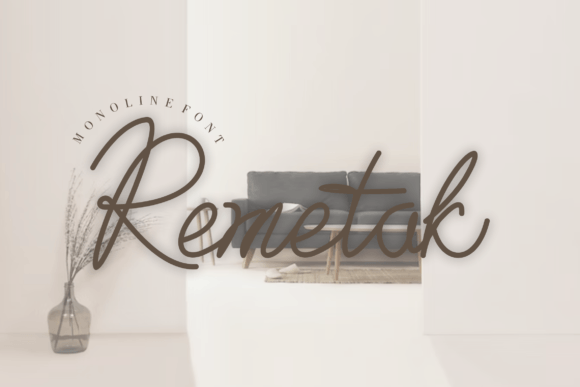
Immerse yourself in the world of Remetak, a captivating script font that exudes an aura of sophistication and grace. Each character flows seamlessly, guided by an elegant hand that dances across the page, leaving a trail of beauty in its wake.
Indulge in the versatility of Remetak, a font that adapts effortlessly to any project, from intimate to grand. Its delicate strokes lend a touch of refinement to personal stationery, while its bold presence commands attention on posters and website headers.
Unleash your creativity with Remetak, a font that empowers you to express yourself with confidence. Its timeless design transcends trends, ensuring that your creations will remain captivating for years to come.
Embrace the allure of Remetak, a font that speaks to your soul. Its enchanting curves and graceful lines will evoke emotions that resonate deep within, leaving an unforgettable impression on your audience.